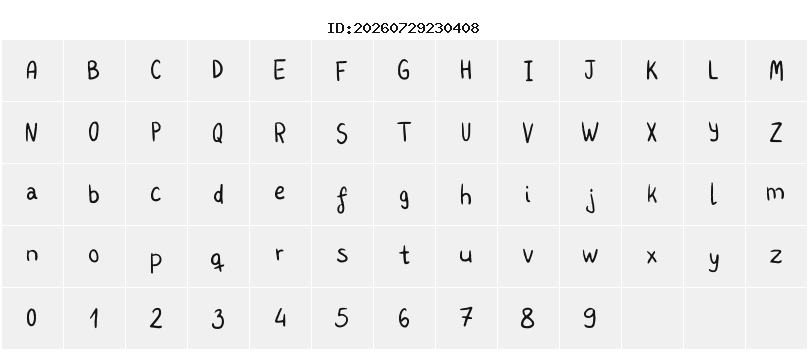
• Font Name: Kharu
Kharu.ttf is a modern, elegant sans-serif font designed for ultimate readability and visual harmony. Perfect for branding, headlines, web design, and print materials.